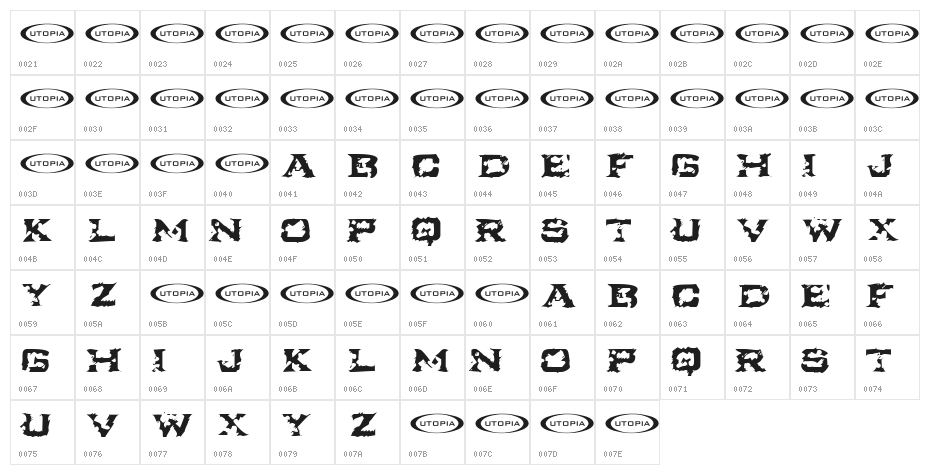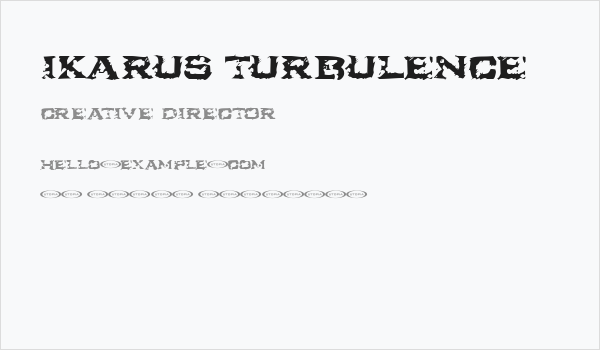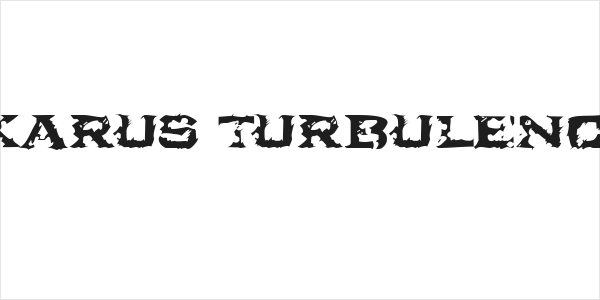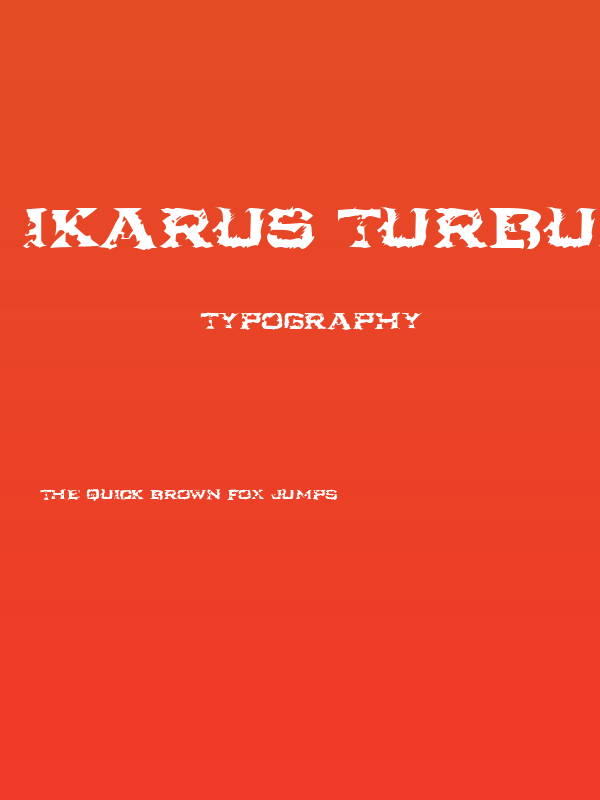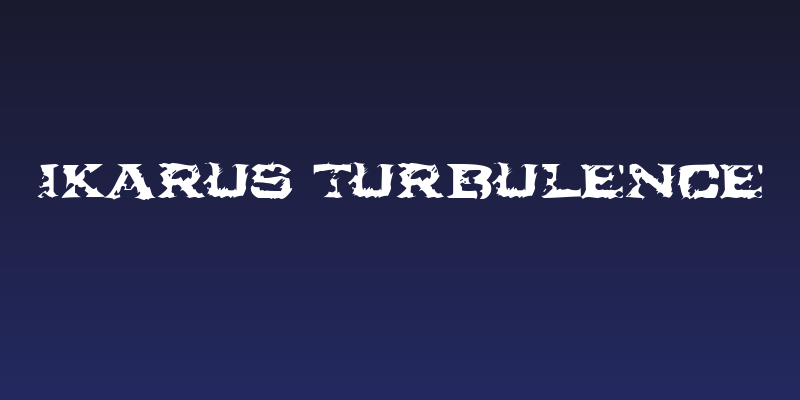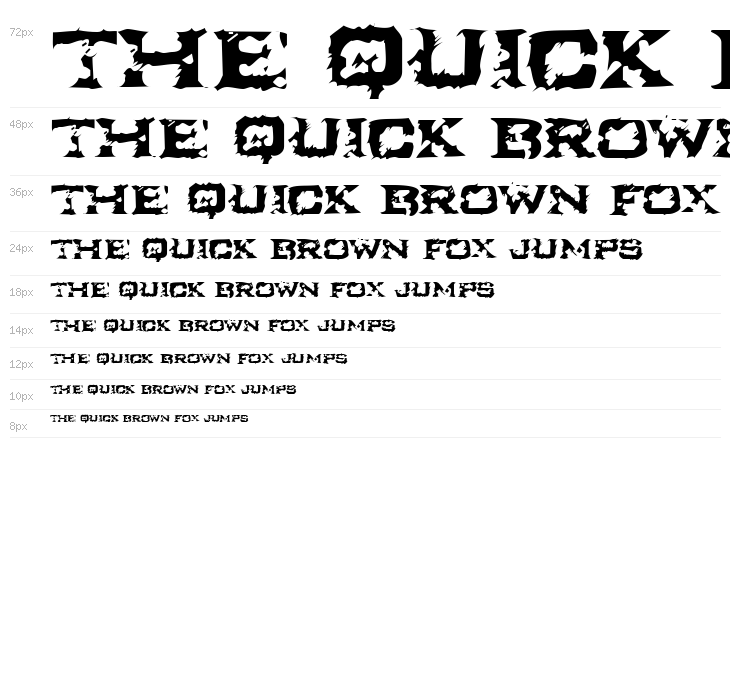
Ikarus Turbulence Font
Ikarus Turbulence Description
This font features a bold and aggressive design with jagged, irregular edges that give it a distressed and turbulent appearance. The characters are uppercase only, with a strong presence and a sense of movement, as if they are being torn or eroded by wind. The style is reminiscent of graffiti or urban decay, making it ideal for projects that require a gritty, rebellious aesthetic. The font's unique texture and boldness make it stand out, ensuring that any text set in this typeface will capture attention.
Proposed ProjectsIdeal for album covers, streetwear branding, posters, and any design needing a gritty, urban edge.